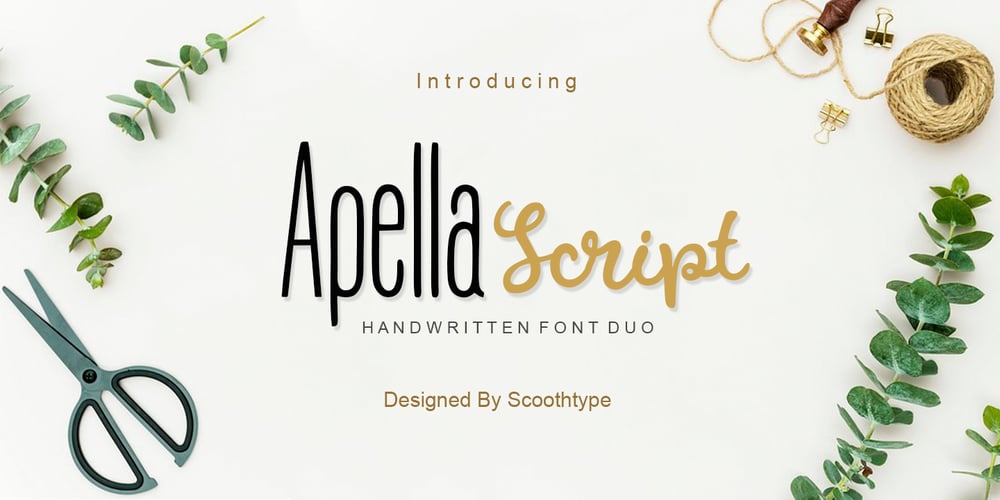
Apella Script Font Family was designed by Muammar and published by Scoothtype. Apella Script contains 6 styles and family package options. Introducing the Apella Font Duo; Stylish & modern harmony of sans & script typography. With a tall, condensed sans-serif font and free-flowing script companion, Apella offers beautiful contrasting typography for a wide variety of design projects, including; logo & branding, packaging design, social media post, advertising & product design. Apella contains 3 font files, designed to serve as the perfect companion or strong standalone typography. Thank You.